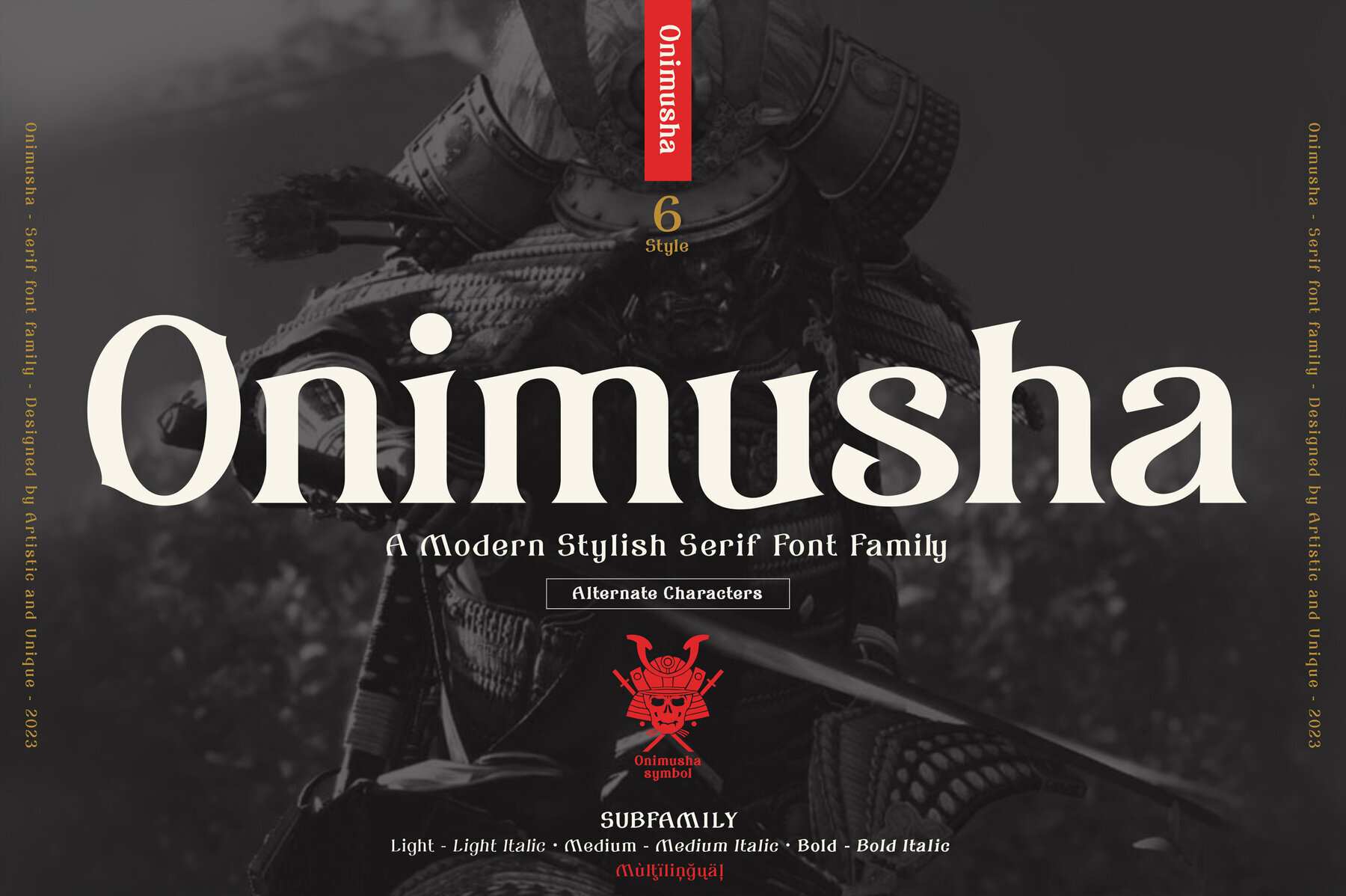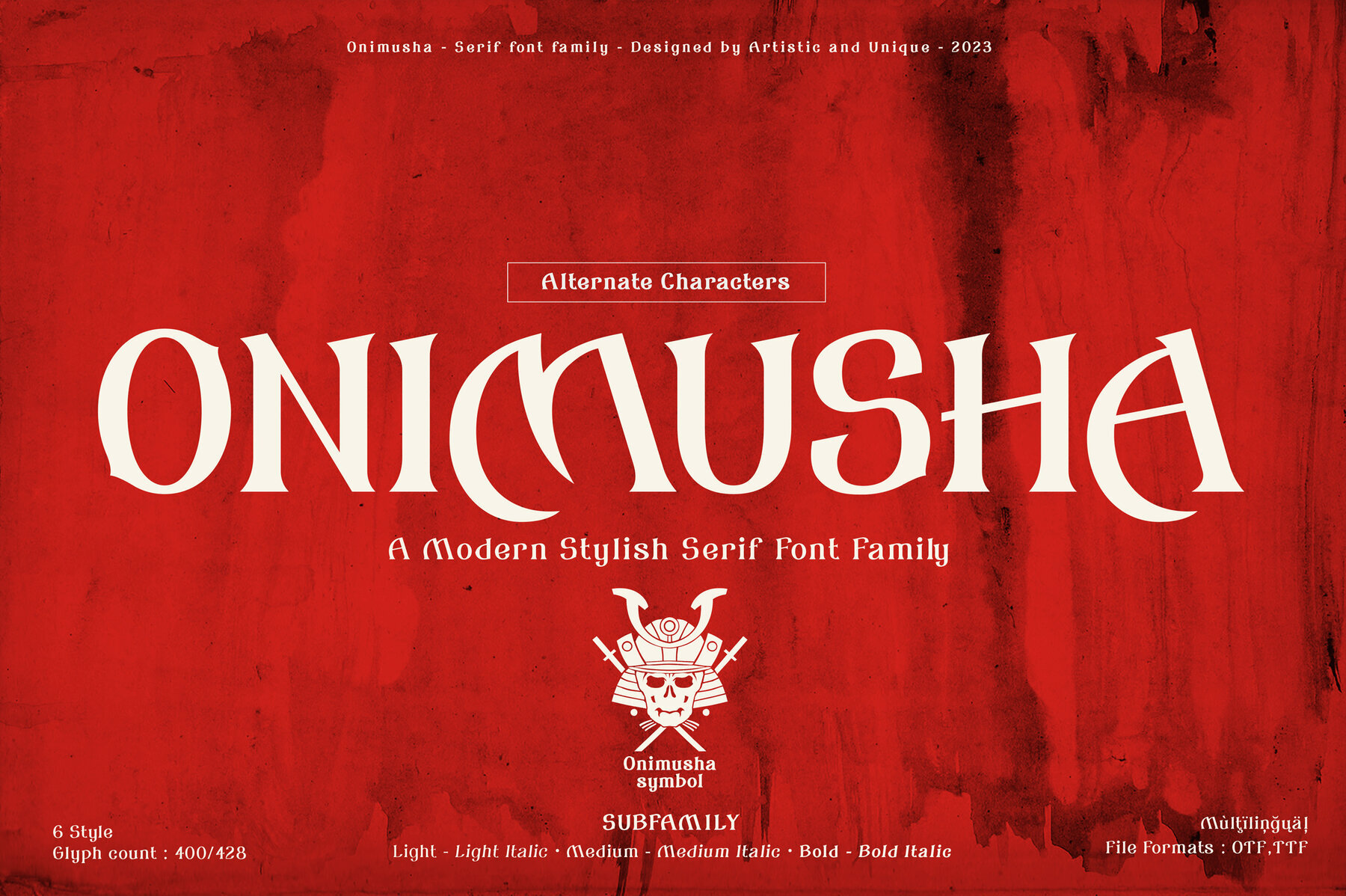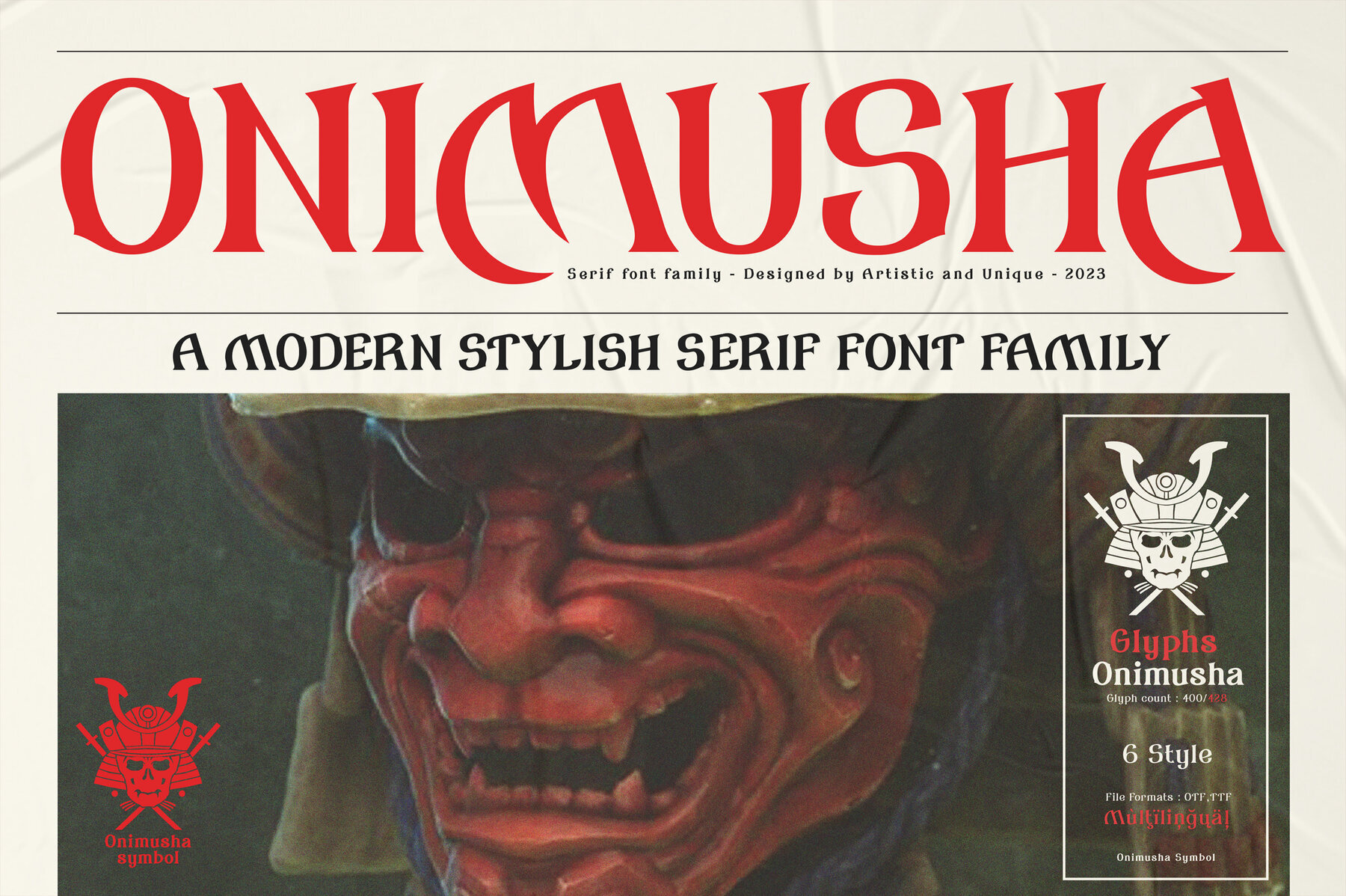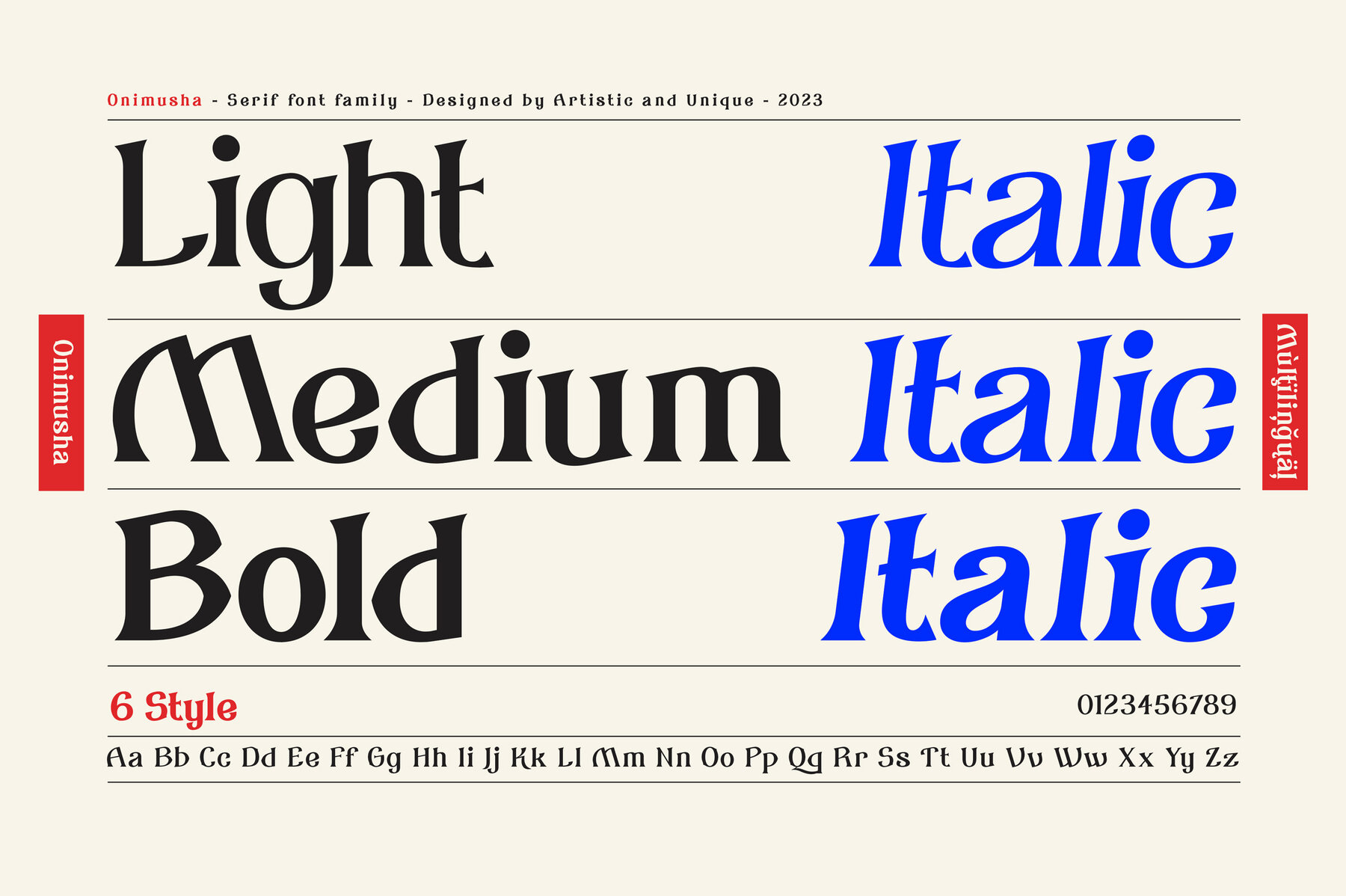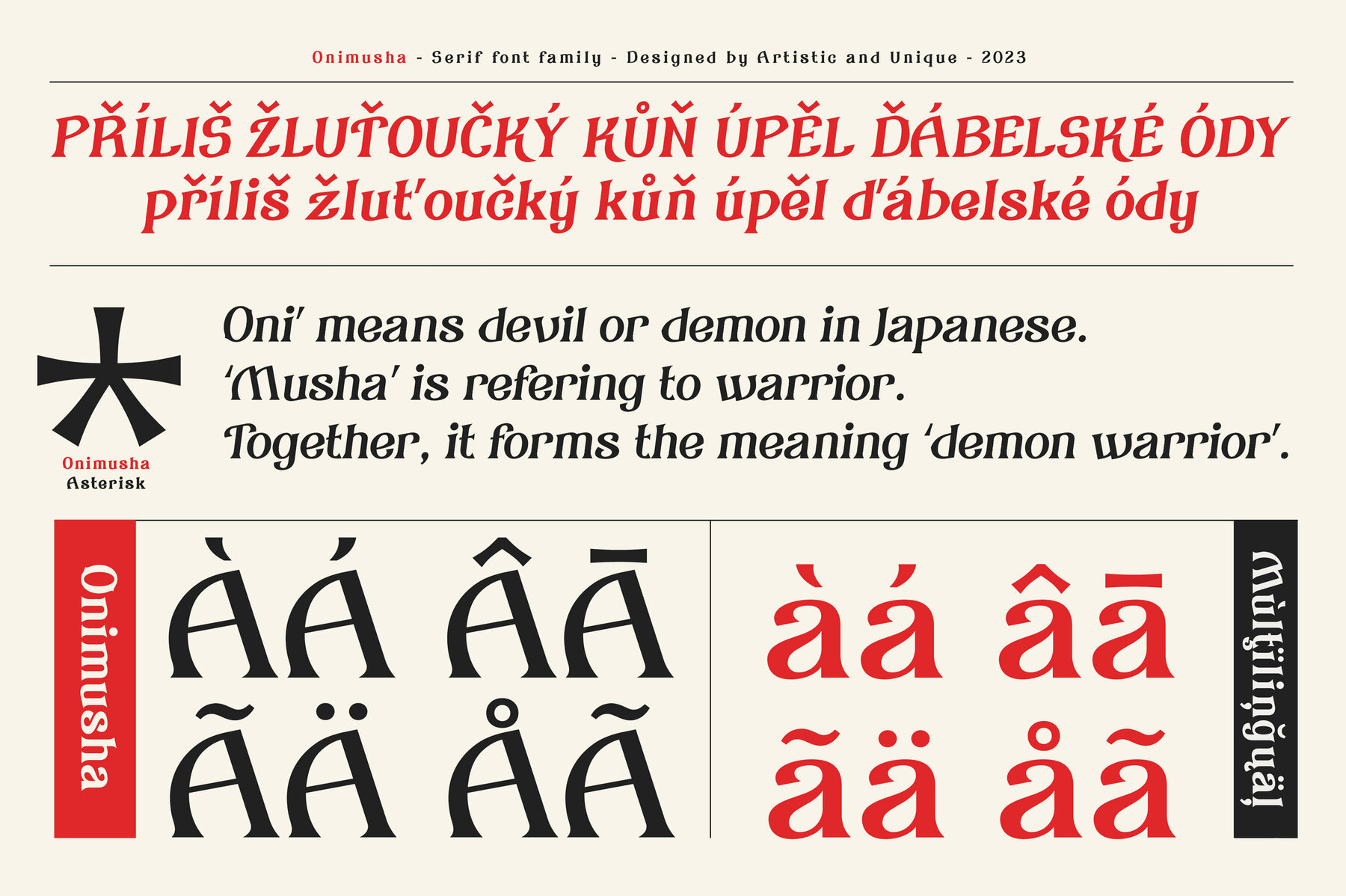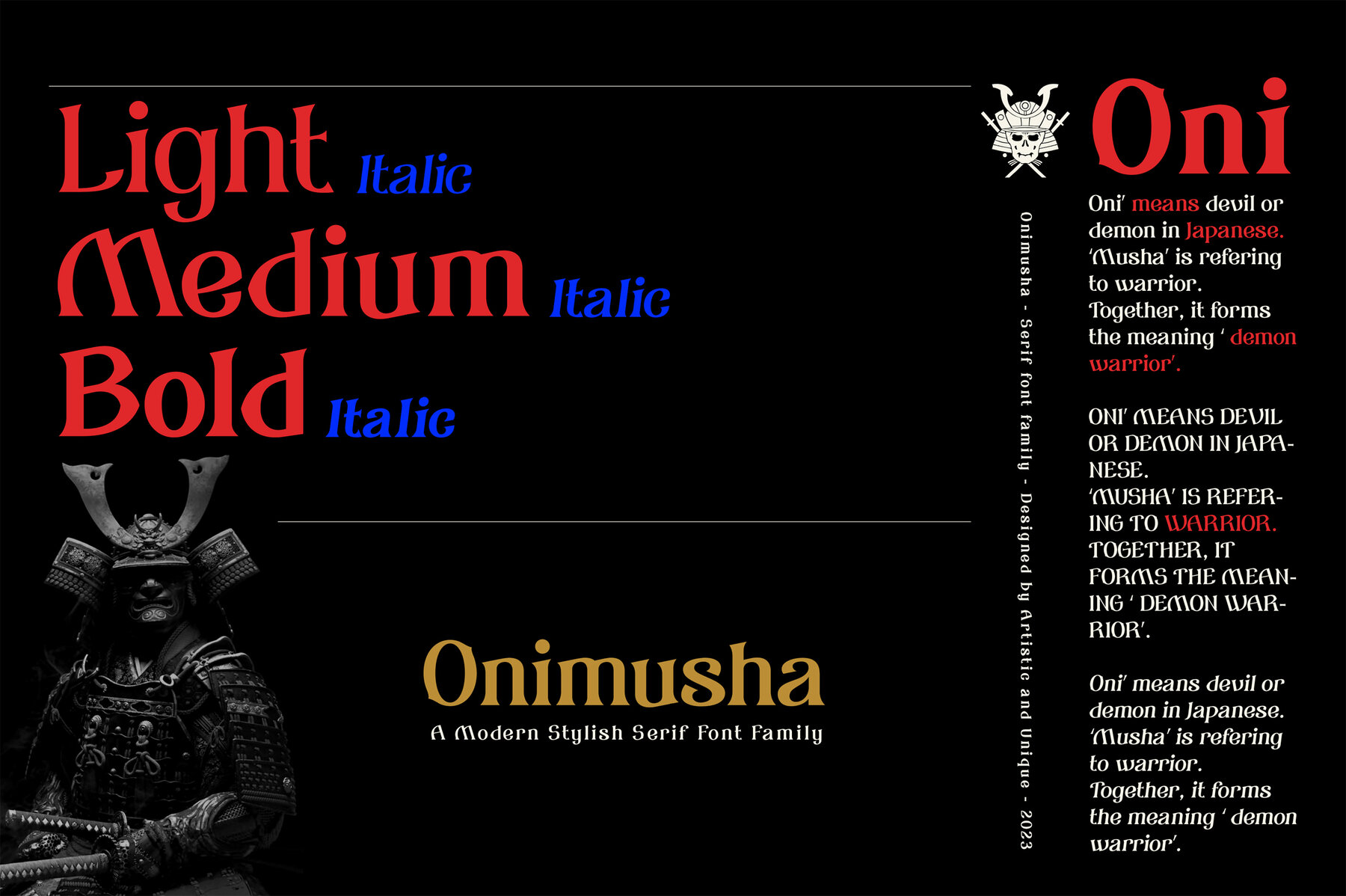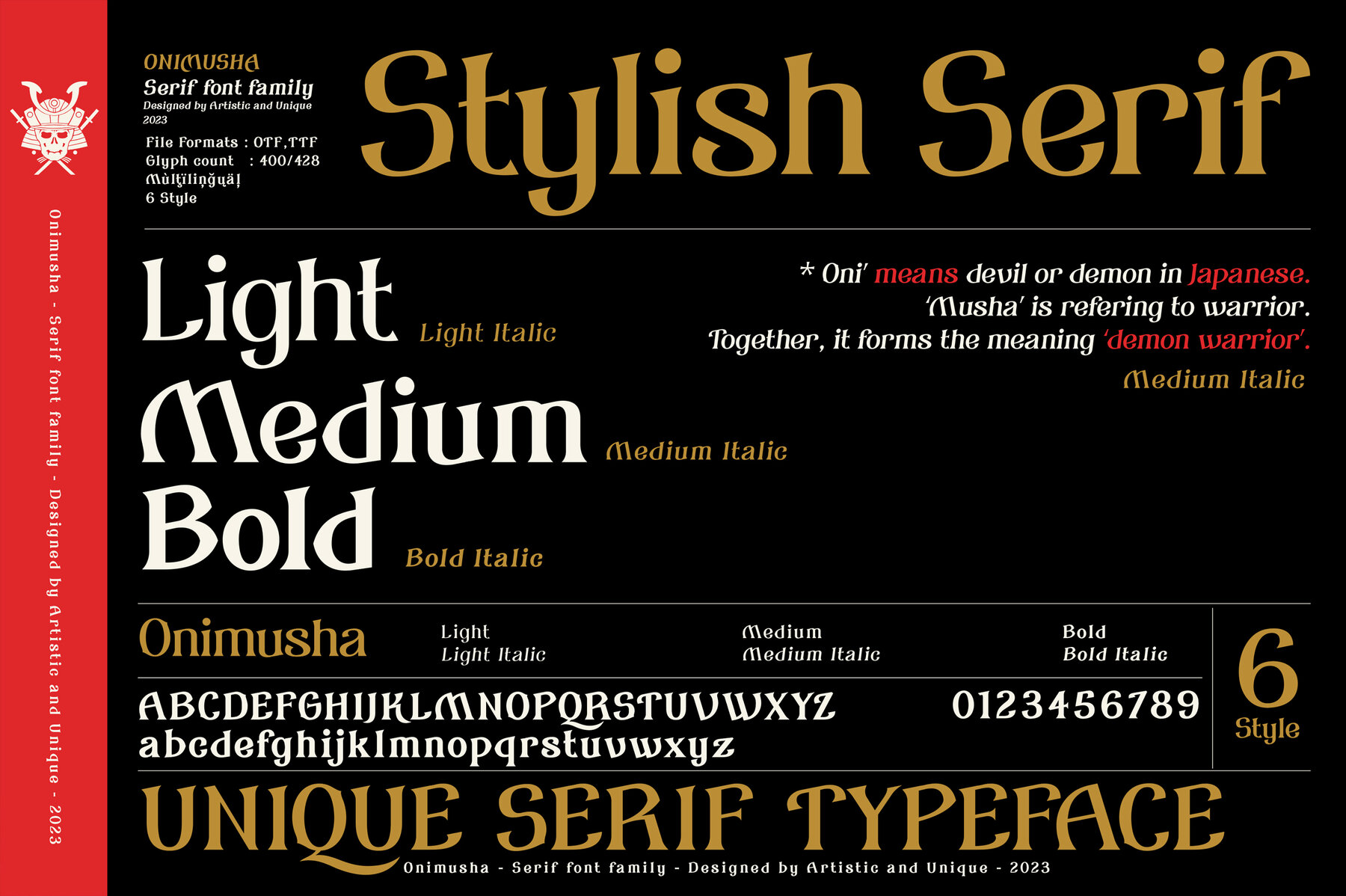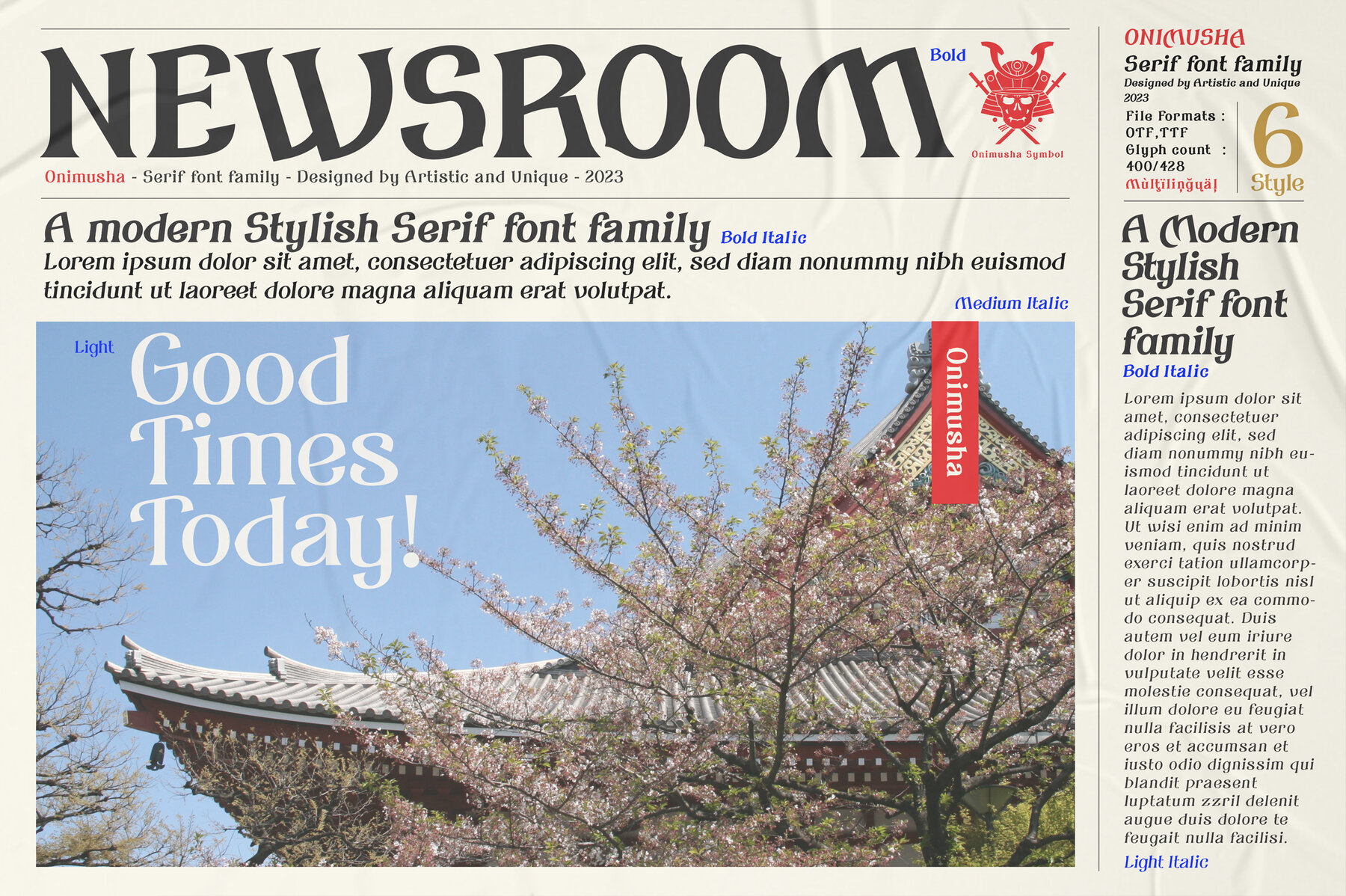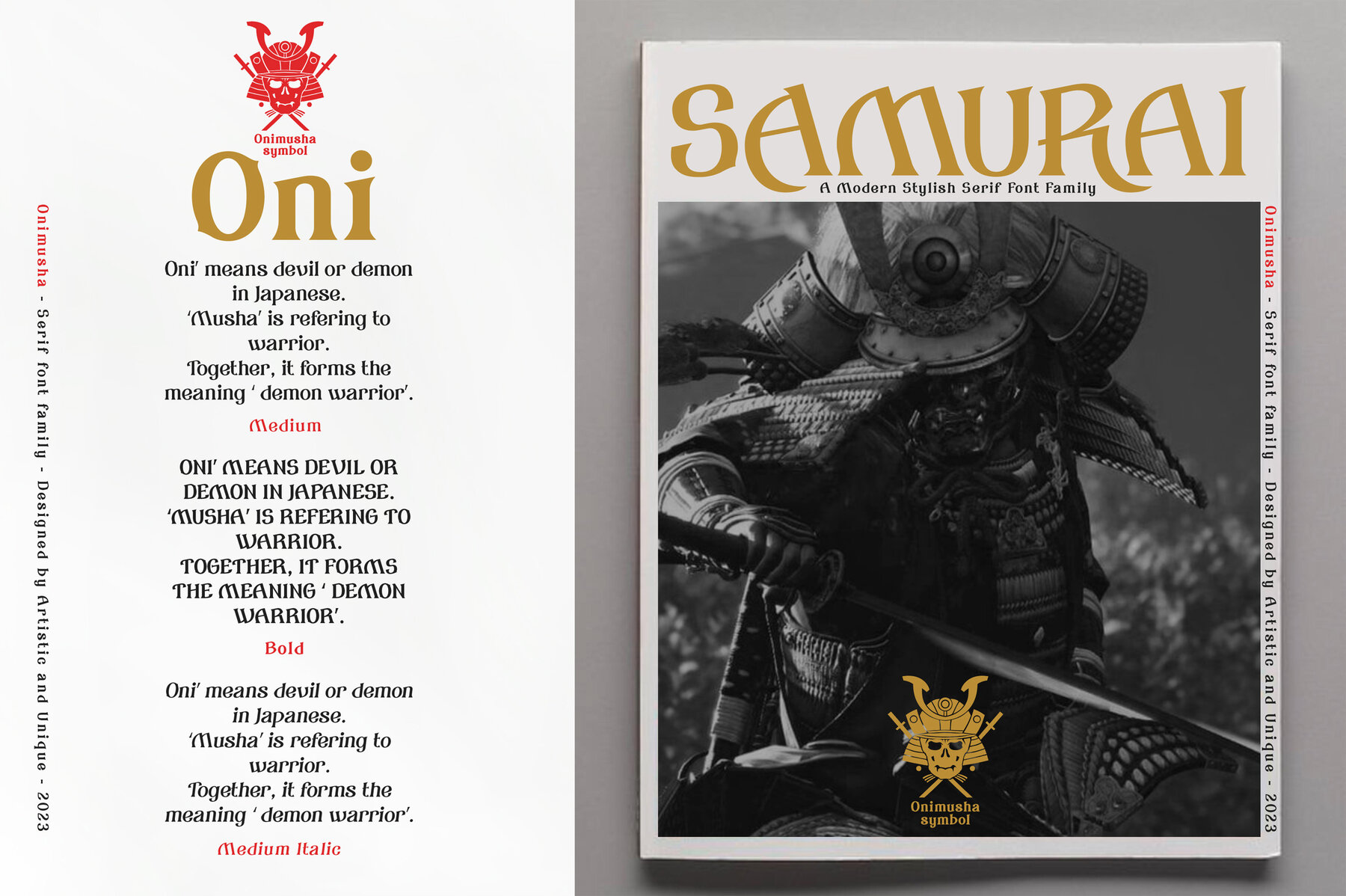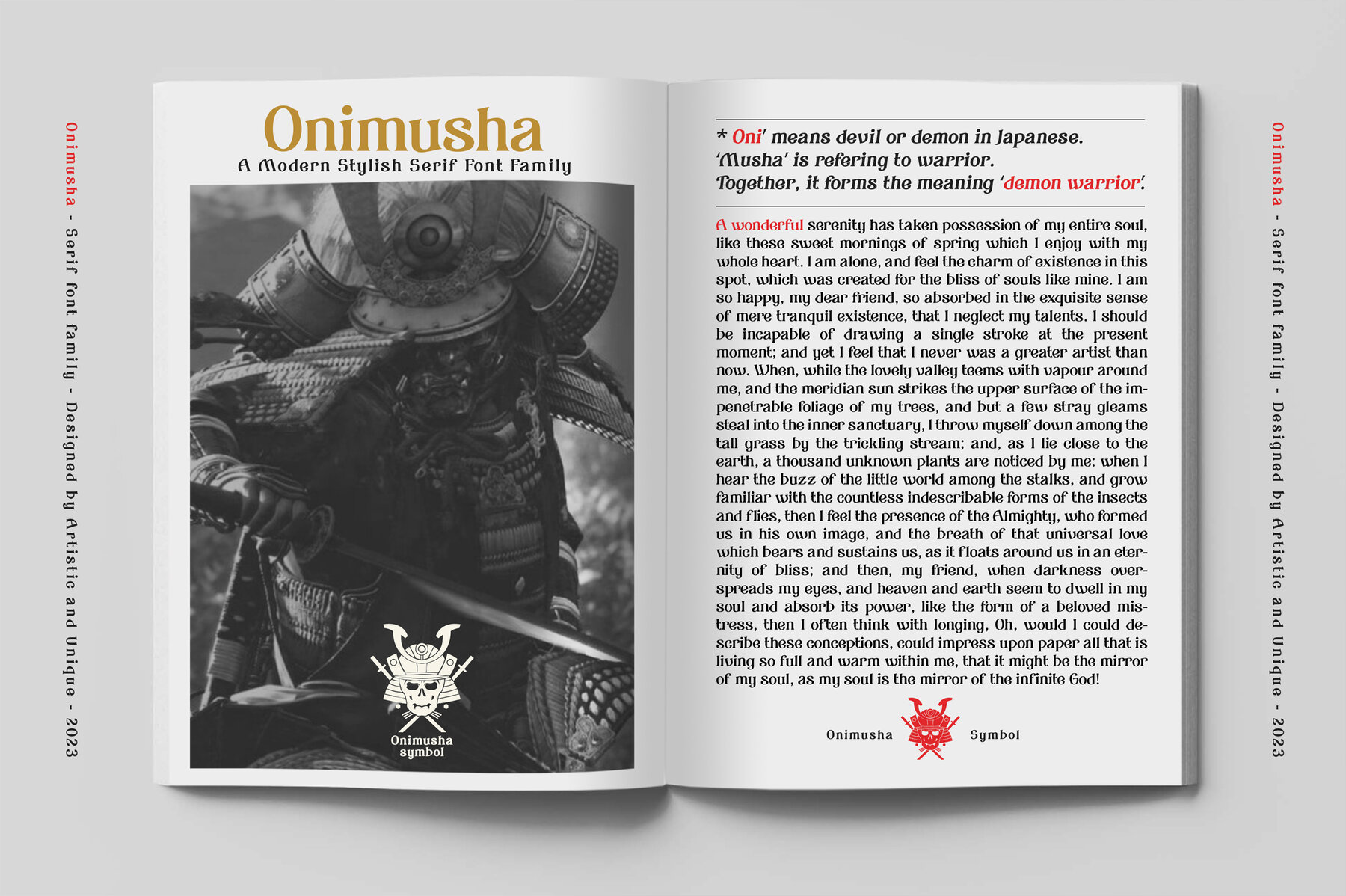
Onimusha Font
Onimusha is a refined serif font family drawing its inspiration from the ancient samurai and mysticism of Japan. This font features six distinct styles, offering multilingual support and a variety of alternative character designs. Its pointed ends symbolize a katana's precision, while the graceful curves reflect an aesthetic philosophy. Whether crafting editorial content or branding materials, Onimusha offers a versatile range of uses. It lends elegance to book titles, magazines, and logos, particularly in packaging and web design. The font's alternative characters allow for enriched typographic compositions tailored to specific project needs.Onimusha: Elegantly Designed Serif Font Family